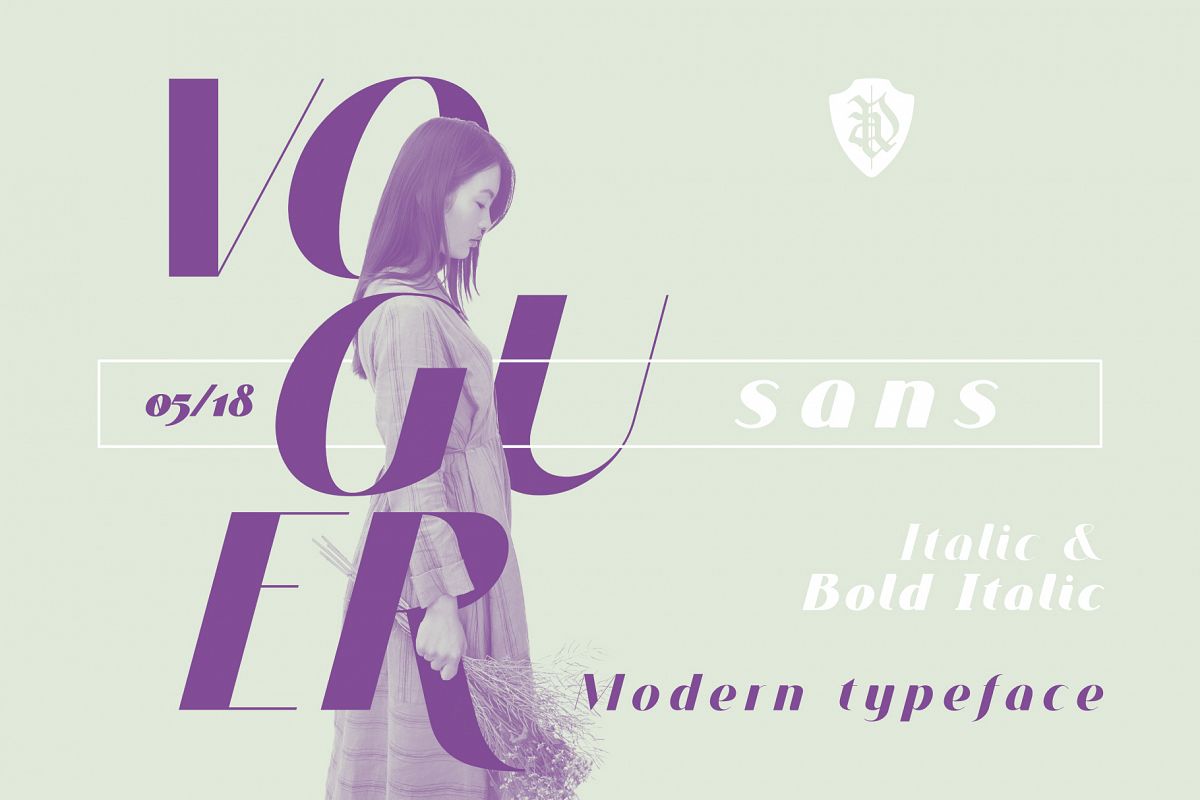
VOGUER Sans Italic
Voguer Sans Italic
Voguer Sans Bold Italic
Voguer Sans Italic is an elegant high-contrast sans-serif font inspired by the fashion glossy magazines typography.
It perfectly represents modern and vintage esthetics.
The font have 2 weights: Italic and bold italic and includes uppercase and smallcase letters, alternate characters and multilingual support.
The font is perfect for wedding elegant invitation cards, beauty and fashion package design, glossy posters.
It have supporting for many european languages and perfect cyrillic!